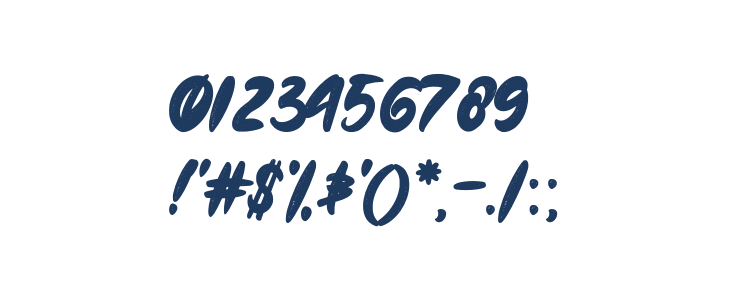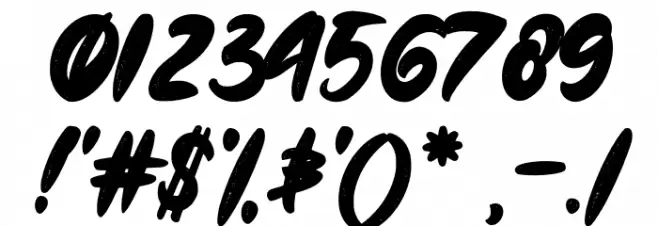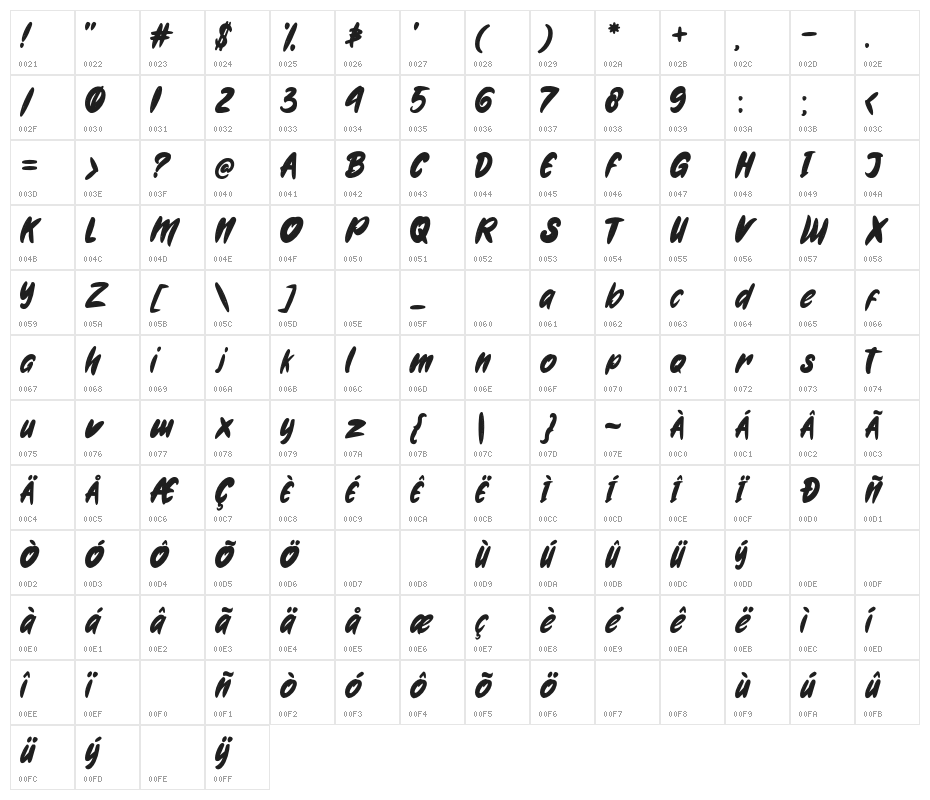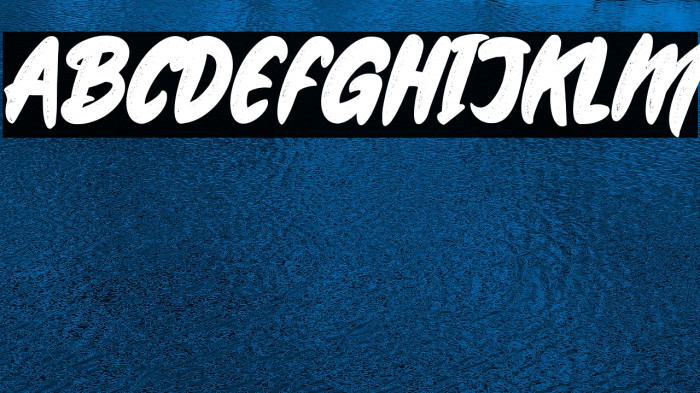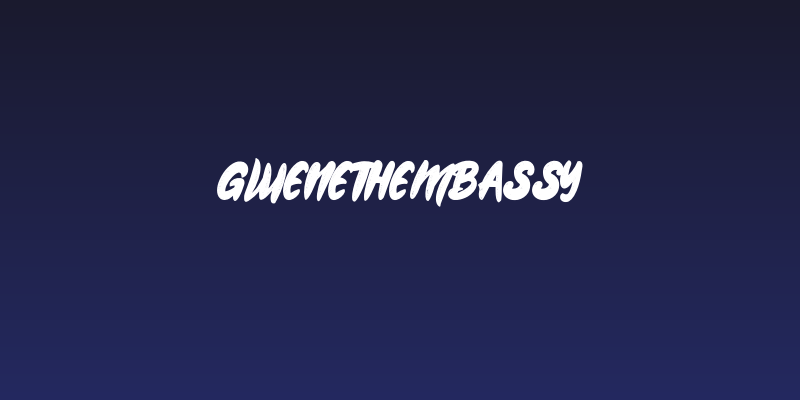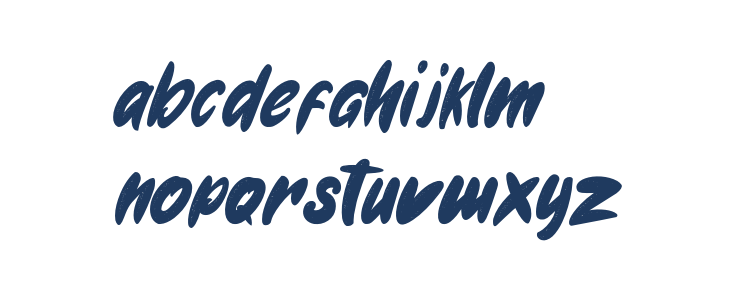
Gwenethembassy Font
Gwenethembassy Description
This font features a bold and dynamic script style with a handwritten feel. The letters are thick and rounded, with a slight slant that adds a sense of movement and energy. The strokes are consistent in weight, providing a uniform appearance across all characters. The uppercase and lowercase letters are well-balanced, and the numbers and special characters maintain the same lively aesthetic. This font is perfect for projects that require a personal touch or a sense of creativity and spontaneity.
Proposed ProjectsIdeal for branding, logos, posters, and creative designs that require a personal touch.